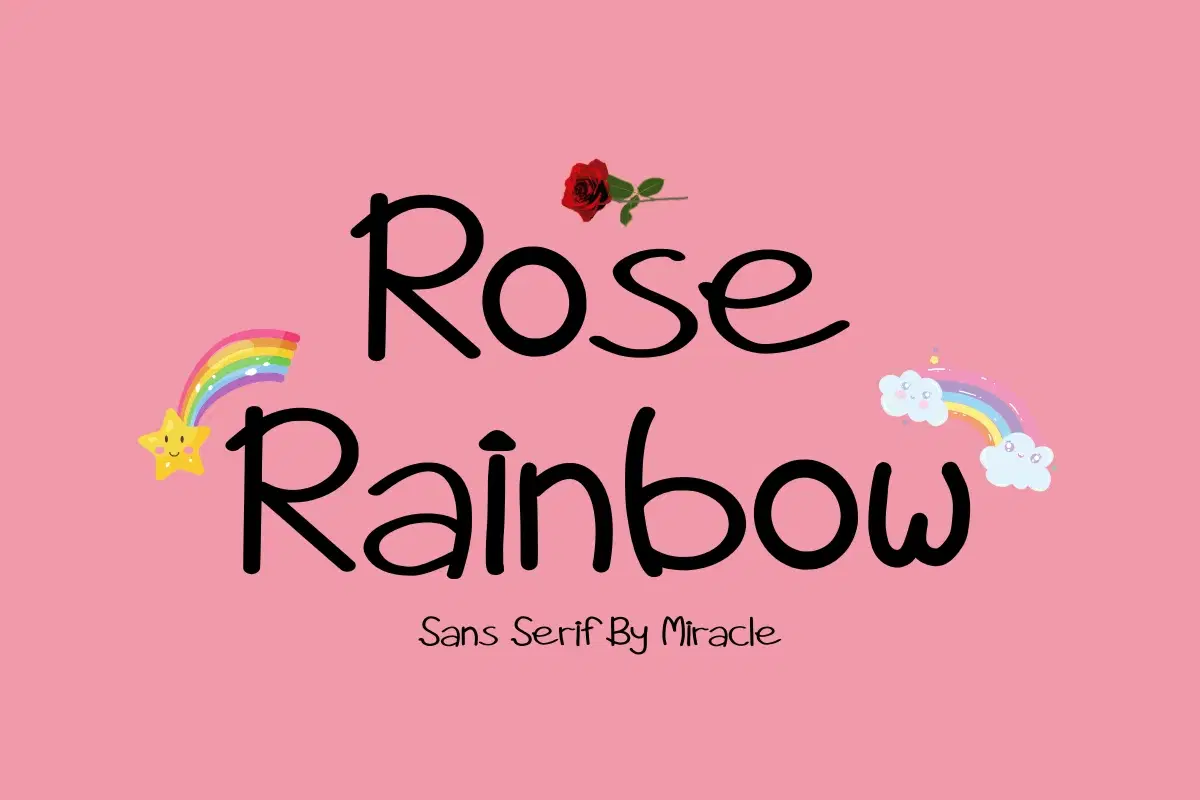
Bring a dash of magic and color to your creative world with Rose Rainbow, a delightful sans serif font by Miracle. This font features a playful hand-drawn style with gentle curves and a lighthearted rhythm, making it the perfect choice for designs that aim to be both dreamy and approachable.
Rose Rainbow is designed to capture the wonder of imagination. Its clean yet whimsical letterforms provide excellent legibility while adding a sweet, artistic flair to your work. Whether you are creating for children, lifestyle brands, or festive celebrations, this font adds a "rainbow" of personality to every design.